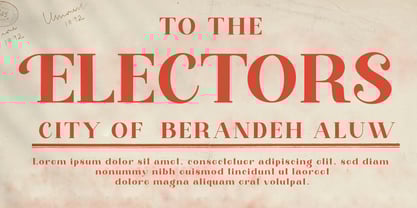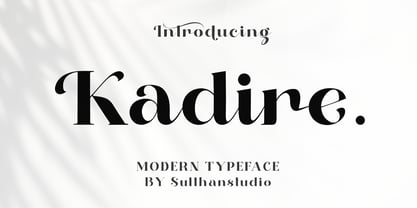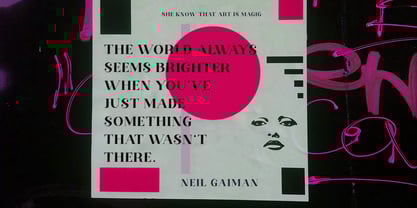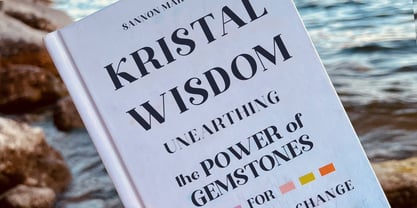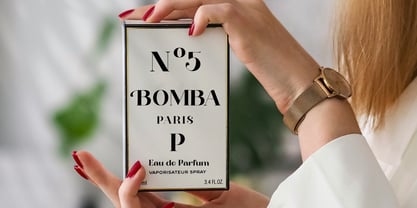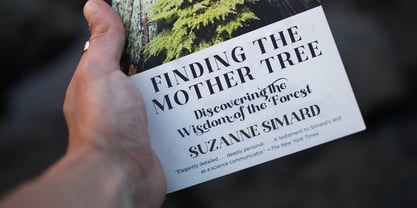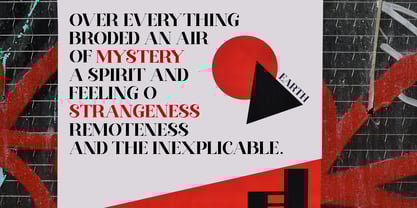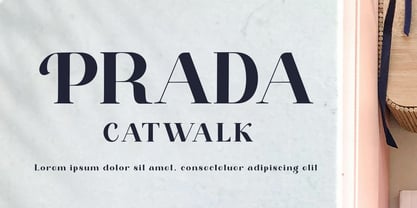
Kadire
von Sulthan Studio
Die Schriftfamilie Kadire wurde von Nasrullah entworfen und von Sulthan Studio veröffentlicht. Kadire enthält 2 Stile und Familienpaketoptionen.
Introducing Kadire, a stunning modern serif font that has been carefully crafted to stand out from the crowd. Its design features an incredible uniqueness that is demonstrated in the highly detailed lowercase letters, each paired with its own distinctive connecting swash. What also sets it apart is the exclusive leading swash designed specifically for the capital letters. This additional element introduces a layer of uniqueness, making it not just a font, but a testament to typographic art. Enjoy the many alternatives for the lowercase letters, which further offer it unmatched flexibility. Experience its uniqueness, its subtlety and let it bring charm and character to your everyday typeface.